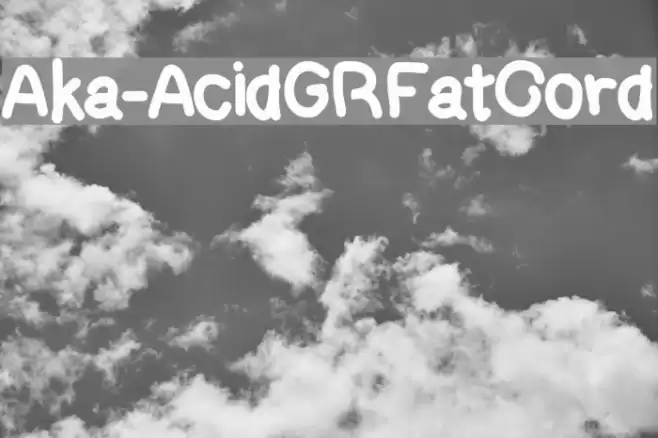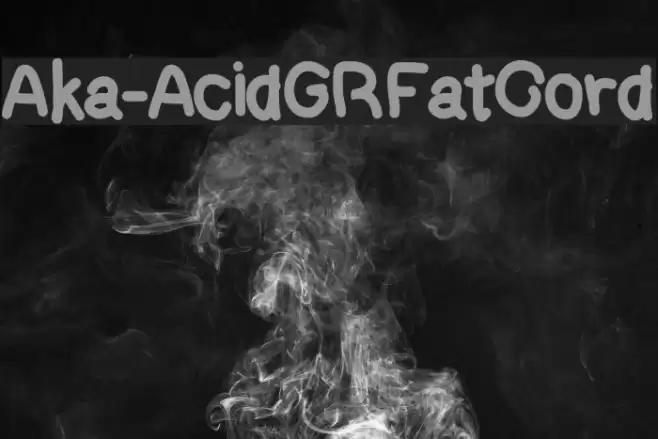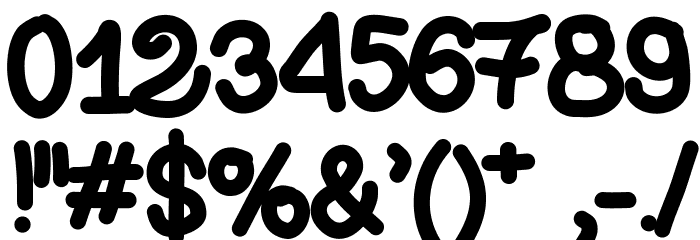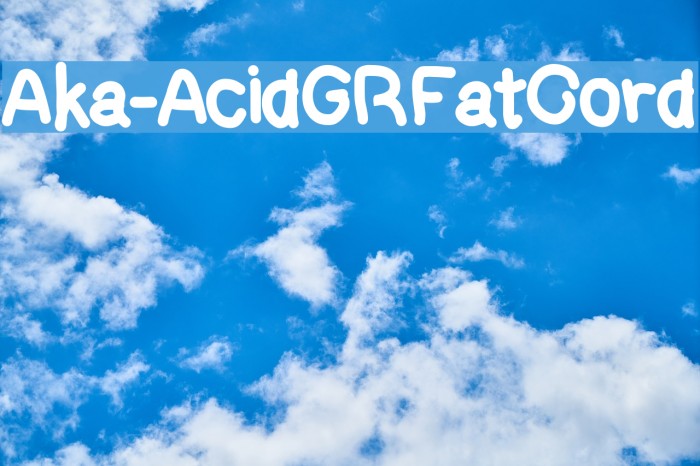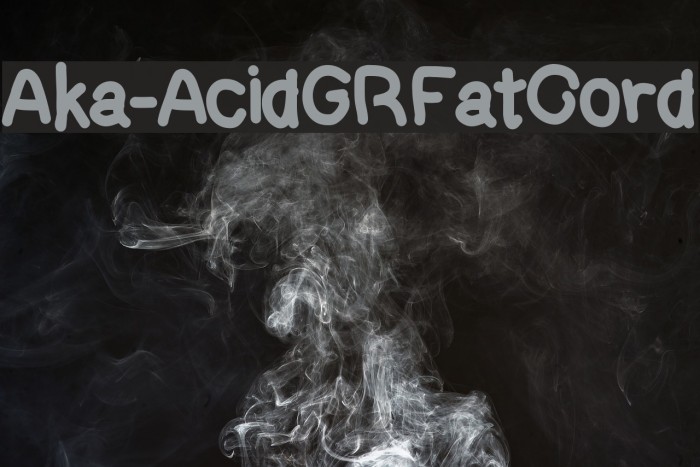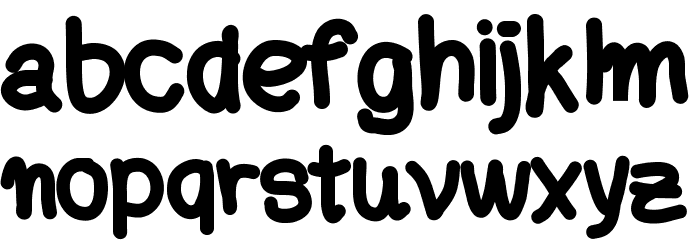
Aka-AcidGRFatCord Font
Aka-AcidGRFatCord Description
This font features a playful and bold style with rounded, bubbly characters that give it a friendly and approachable appearance. The letters are thick and consistent in weight, providing a strong visual impact. The uppercase and lowercase letters maintain a cohesive look, with smooth curves and a slightly informal feel. The numerals and special characters follow the same design principles, ensuring uniformity across all glyphs. This font's unique character makes it suitable for creative and casual applications, where a touch of whimsy is desired.
A playful, bold font with rounded, bubbly characters from Uncategorized fonts.
- Proposed Projects: Ideal for children's books, playful branding, party invitations, and creative posters.
- Overall Style: Playful